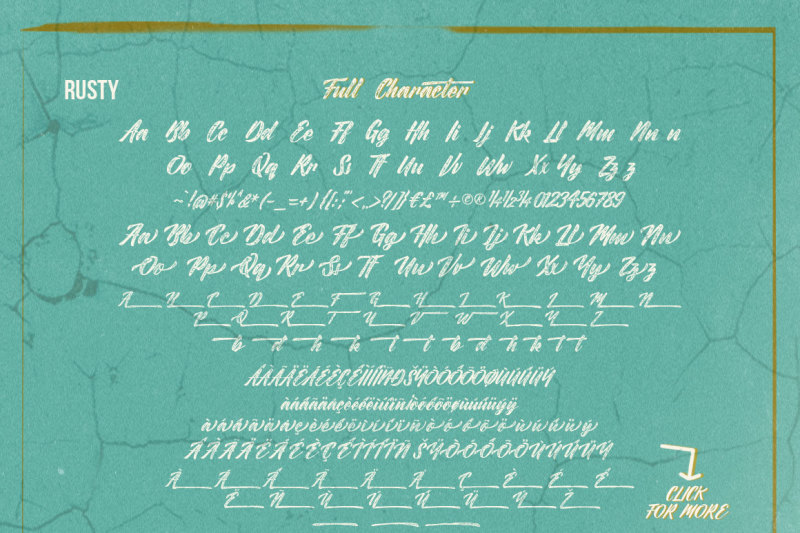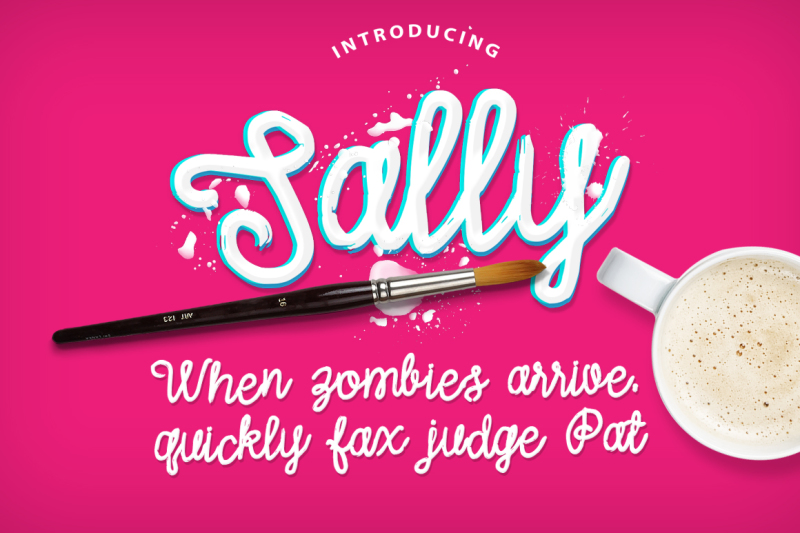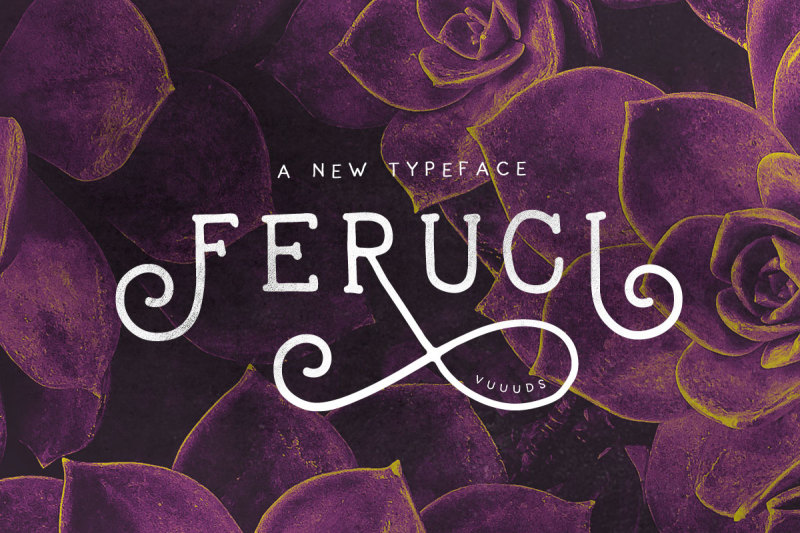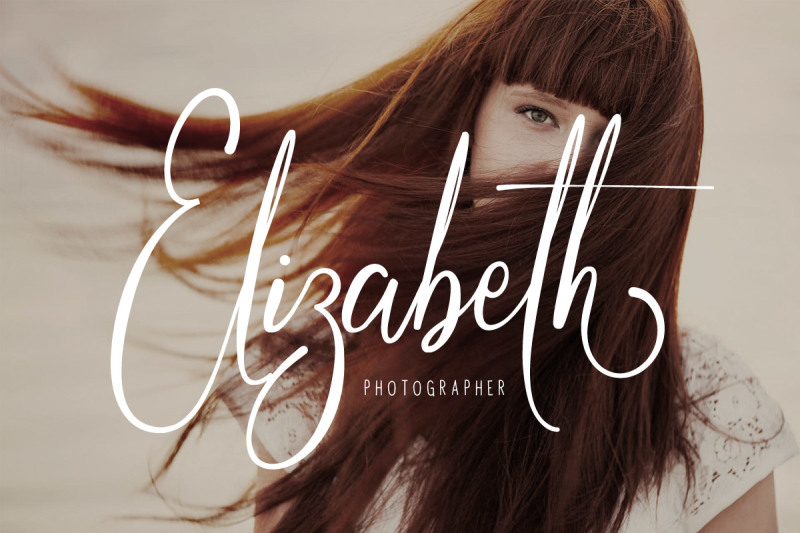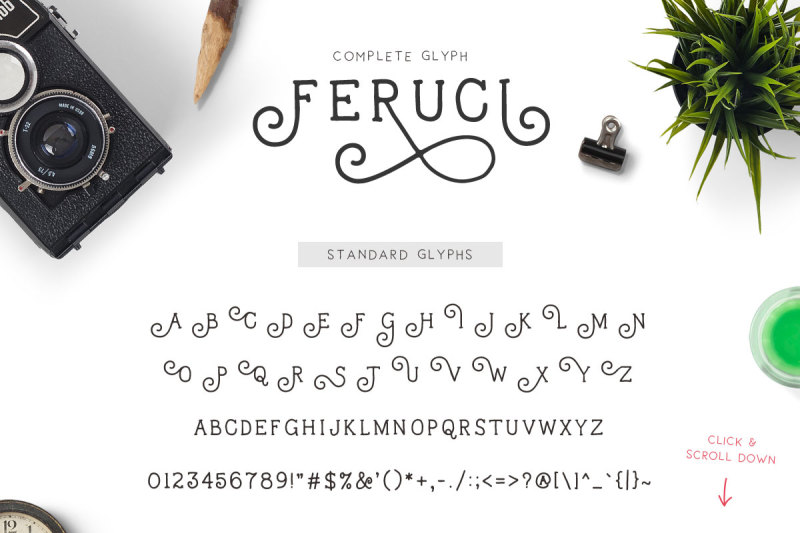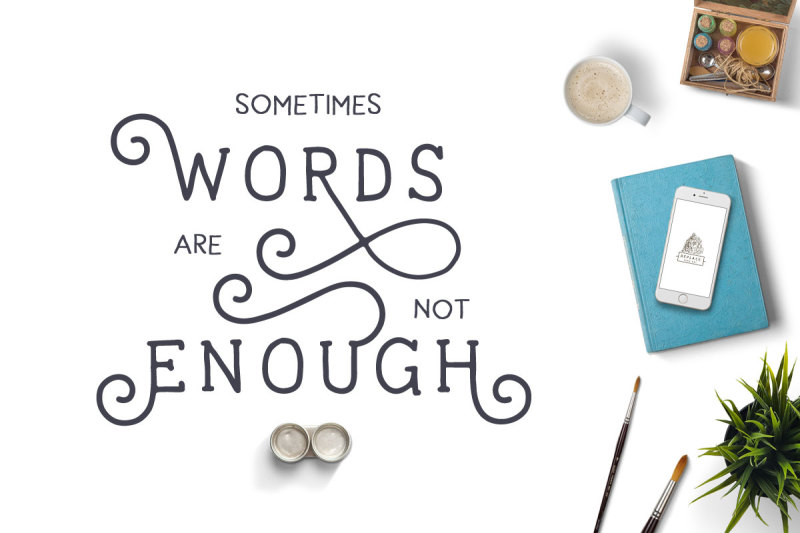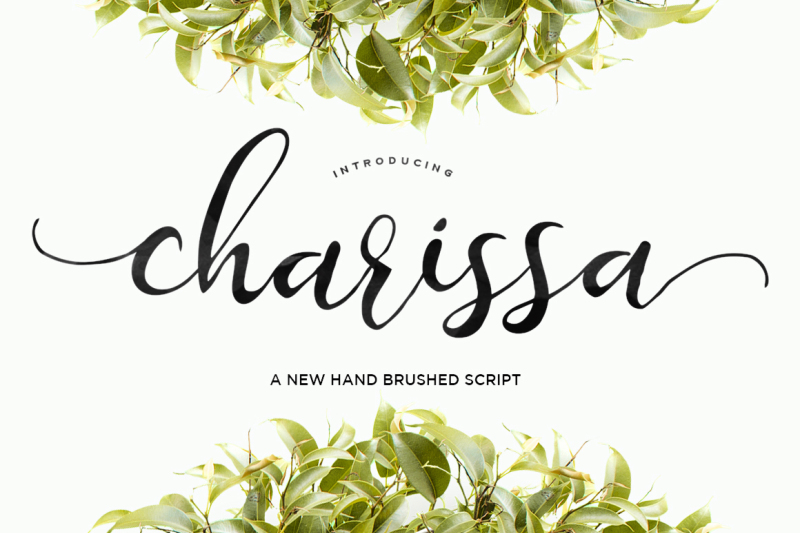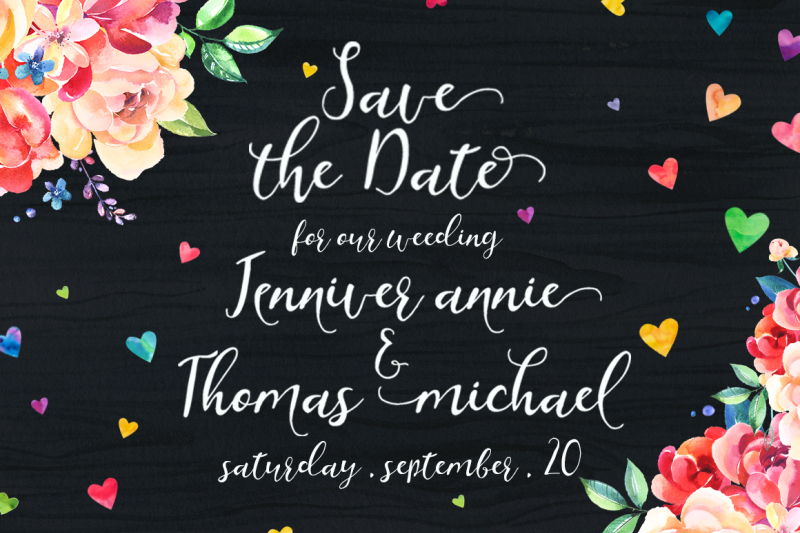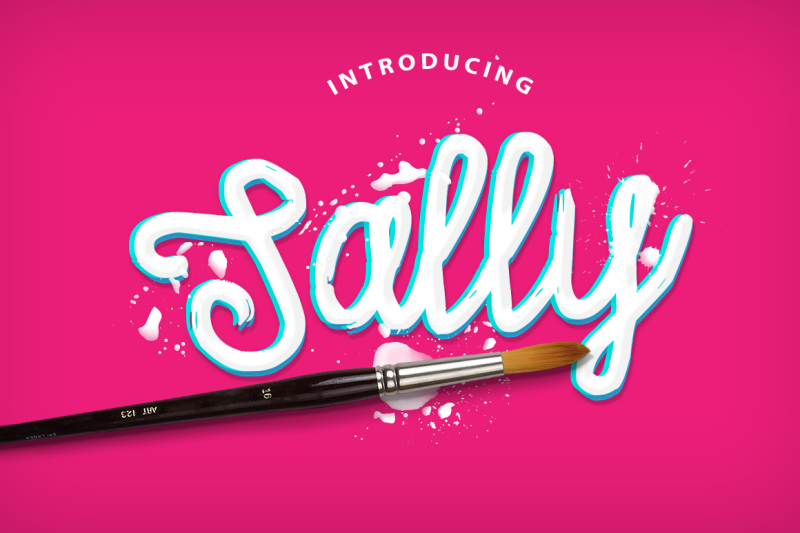
1. Molly Script by Seniors Studio
How stunningly gorgeous is this script font by Seniors Studio?! We are in love! A wonderful mix of old school calligraphy and modern swirls! This font also inclides a set of whirly, curly ornaments!
2. Remember Script (2 Fonts) by Get Studio
This remember script is so fantastic for so many different designs that we dont know where to start! The bonus font included is such a perfect compliment to the script font, it really is a match made in heaven!
3. Feruci by Vuuuds
Ok, so this isn't exactly a script font per se.. BUT it is a gorgeous swirly font that is so fun to use and inludes lots and lots of fabulous additional characters for you to choose from! Definitely a keeper!
4. Romantic Script by Emily Spadoni
Emily Spadoni is a fantastic designer that we have long been a fan of here at TheHungryJPEG.com. She consistenly creates such intricately detailed fonts that we simply cannot get enough of. Her latest offering is no exception and we know you're all going to love it!
5. The Painter by Aiyari
The painter is an awesome font created by the ever so talented design house 'aiyari'. We love the rustic feel of the letters and the strength of each character. Full of life and packed with tons of additional glyphs for your to play with!
6. Beautylove Script by IanMikraz Studio
Beautylove is a gorgeous script font that has so many swashes and swirls that will make your designs really stand out. Effortlessly elegant and full of sophisticated grace, we adore beautylove for all of its girly charm!